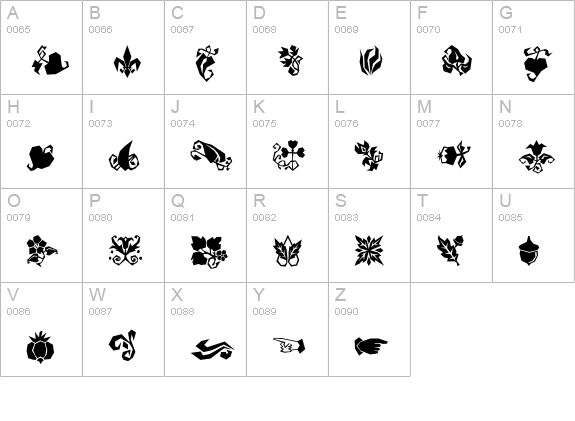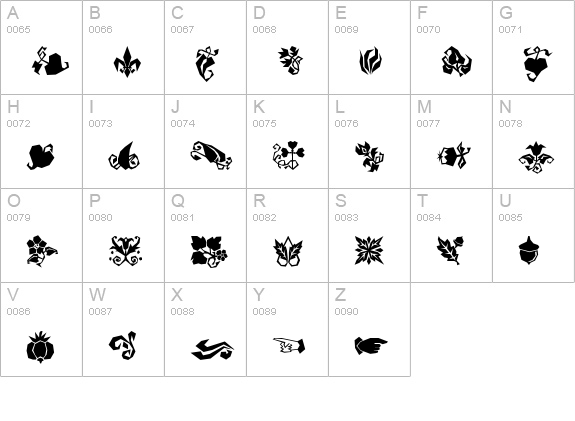
DamoselDingbats Font Details
Introducing DamoselDingbats, a captivating and whimsical font that will transport you to a world of enchantment and imagination. With its intricate details and playful design, this font is perfect for adding a touch of magic to your projects. DamoselDingbats offers a vast collection of unique symbols and characters, each carefully crafted to bring joy and creativity to your designs. From adorable animals to mystical creatures, from elegant ornaments to expressive icons, this font has it all. Let your imagination run wild as you explore the endless possibilities that DamoselDingbats has to offer. But what makes DamoselDingbats even more extraordinary is the fact that it is completely free! Yes, you read that right. You can download this remarkable font without spending a dime. Simply head over to FontsMarket.com and discover the wonders of DamoselDingbats for yourself. Whether you're a professional designer looking to add a unique flair to your projects or an enthusiast seeking to add a touch of whimsy to your personal creations, DamoselDingbats is the perfect companion. Its versatility and charm make it suitable for a wide range of applications, from logos and branding to invitations and greeting cards. So why wait? Unleash your creativity and let DamoselDingbats take your designs to new heights. Download this captivating font today, free of charge, at FontsMarket.com and unlock a world of endless possibilities. Get ready to embark on a magical journey with DamoselDingbats!